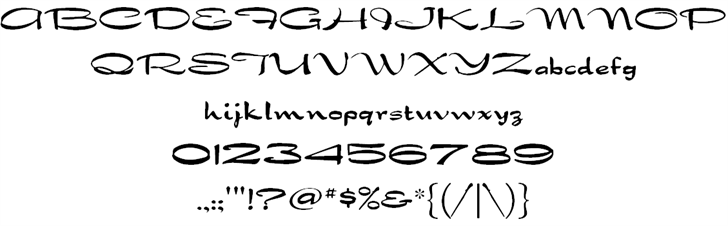
Free Dragonfly Font
Download and enjoy this free dragonfly font. Cool typeface to showcase your designs in a modern way. This is a downloadable typeface file brought to you by Font Space. This is absolutely beautiful font so you can easily make world-class designs.